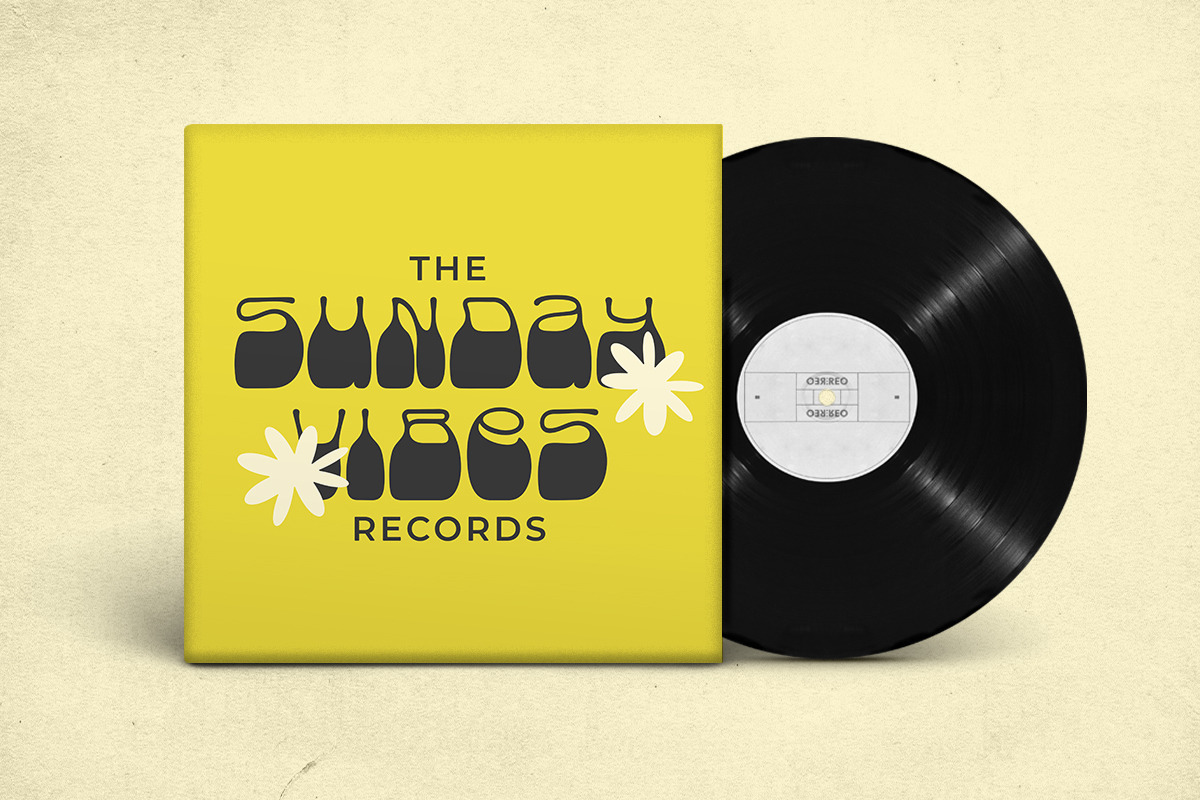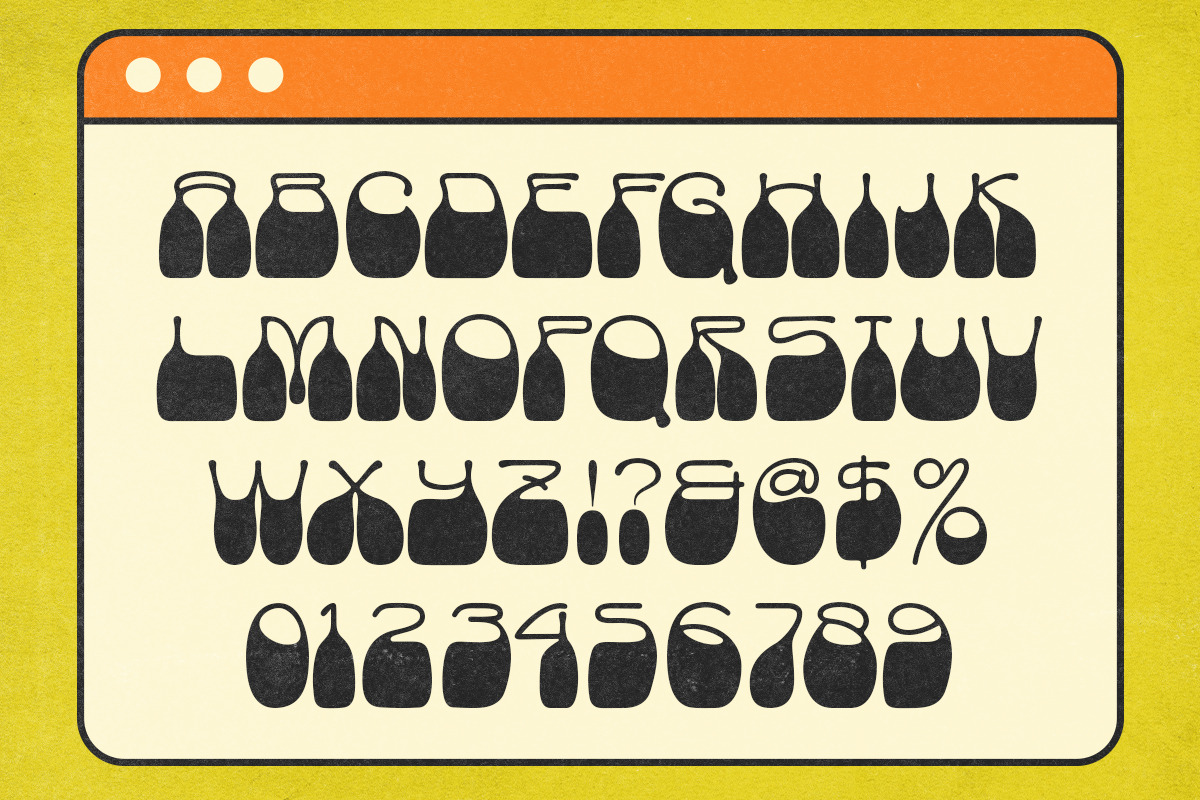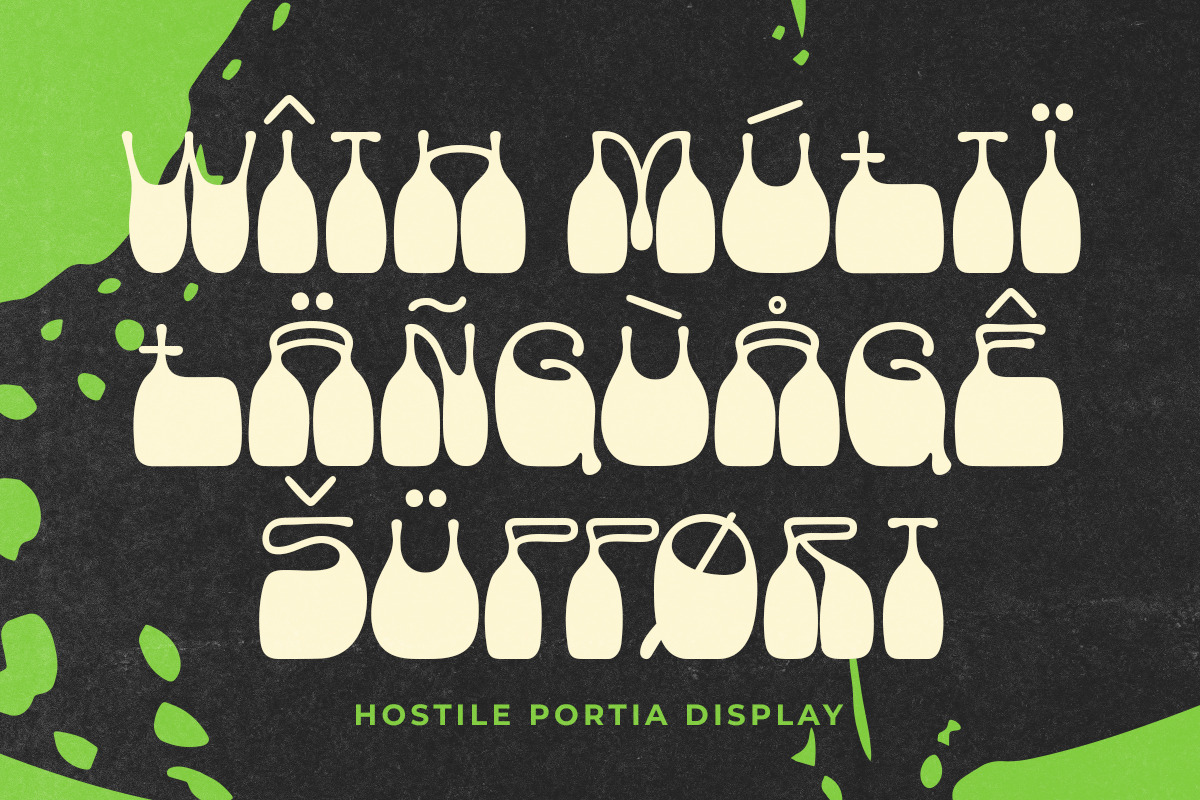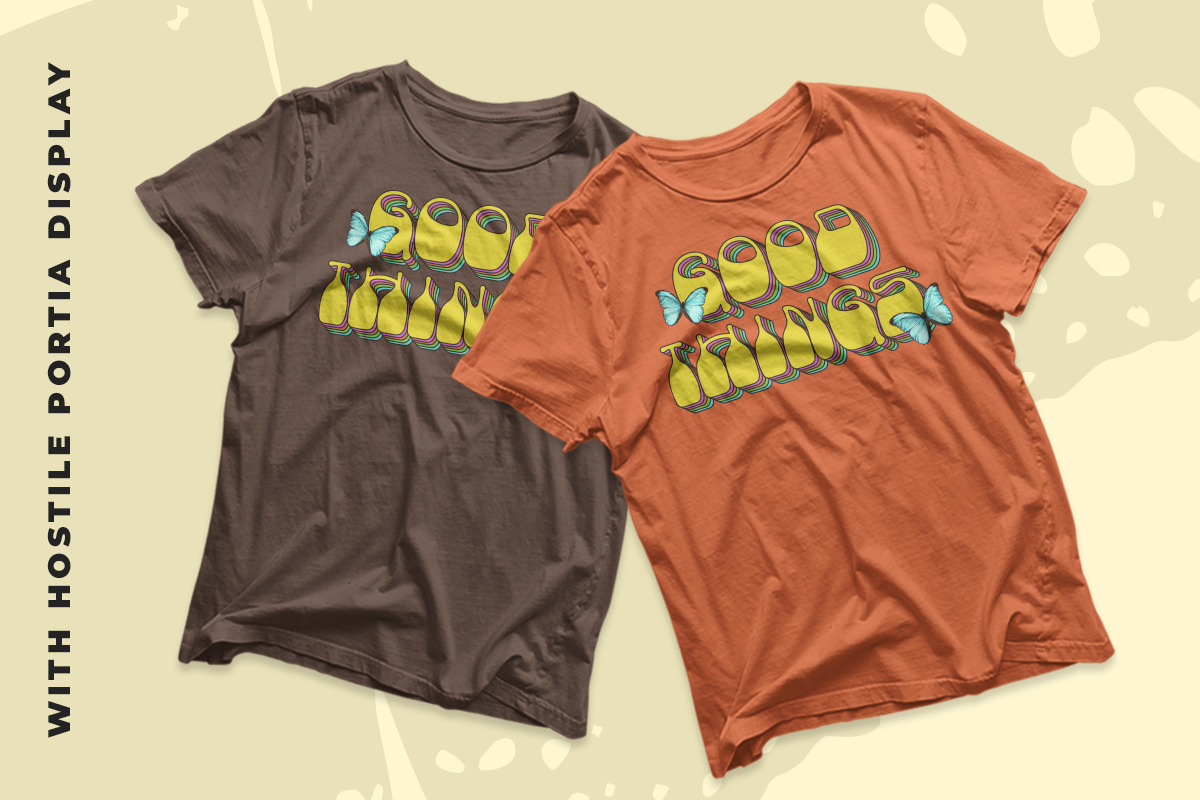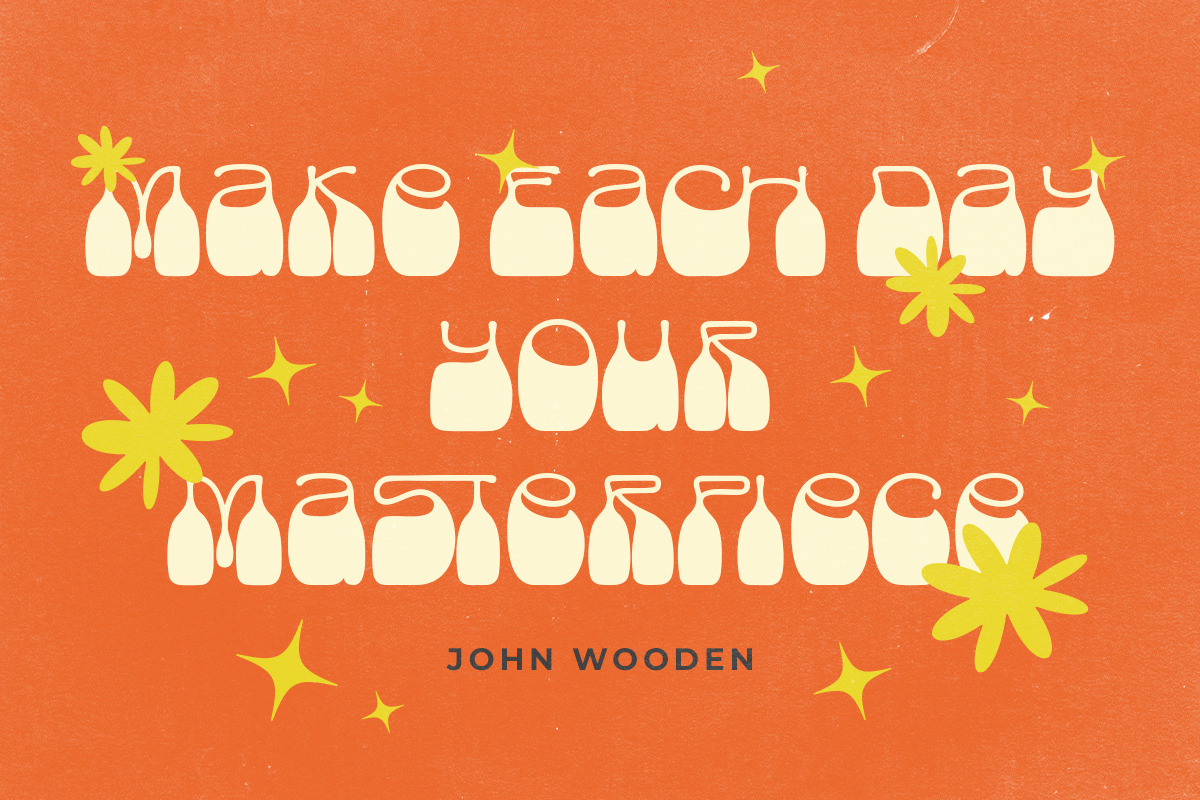
Hostile Portia - Uique Reserve Displ
Hostile Portia a reverse display font with aesthetic looks. This type of font perfectly made to be applied especially in storybook children or child theme which is need a standout font, and the other various formal forms such as invitations, labels, logos, magazines, books, greeting / wedding cards, packaging, fashion, make up, stationery, novels, labels or any type of advertising purpose.